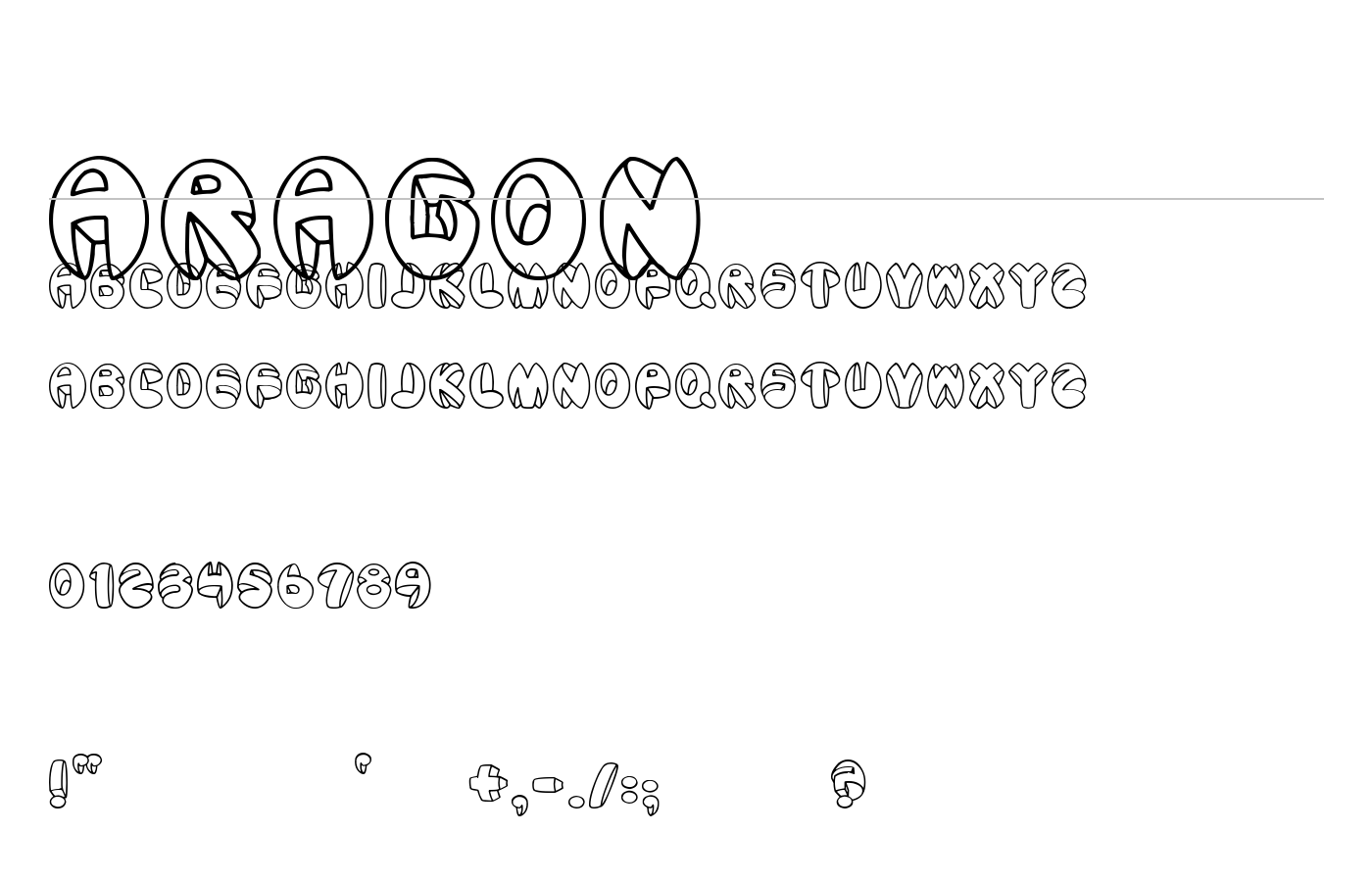
Aragon is a playful, hand-drawn display font characterized by its bold, rounded letterforms with decorative internal lines that add a sense of fun and uniqueness. Its wide and airy shapes make it ideal for eye-catching headlines, children's designs, and creative branding that seeks a lively and informal vibe. This font works best in contexts where personality and a whimsical touch are desired, such as posters, logos, and casual editorial layouts.
Aragon Font
About Aragon Font